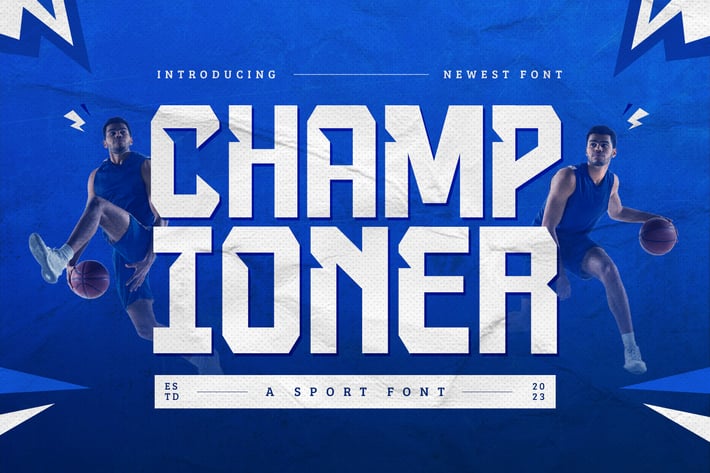
Championer - A Sport Font
Championer is a bold and dynamic sport font designed to embody the spirit of athleticism and competition. With its strong, clean lines and powerful letterforms, Championer is perfect for sports branding, team jerseys, event posters, and merchandise. This typeface exudes energy and determination, making it ideal for projects that require a sense of movement and excitement. Whether you're designing for a championship event or creating a logo for a sports team, Championer delivers the impact and style you need to stand out.
– Lowercase
– Ligature
– Multilingual Support